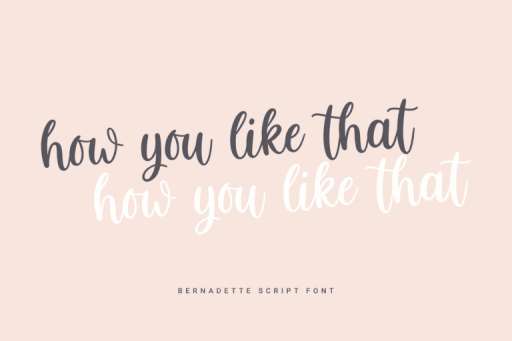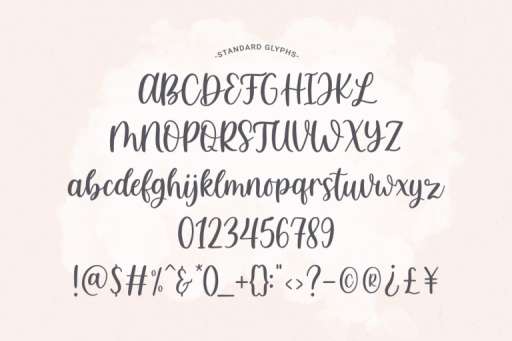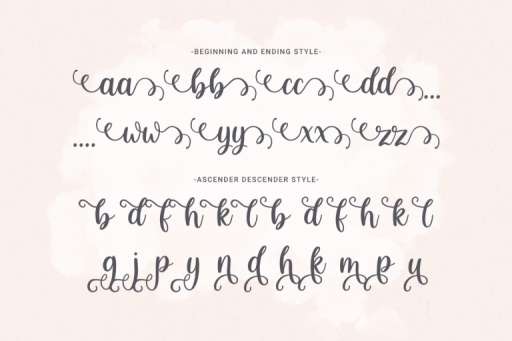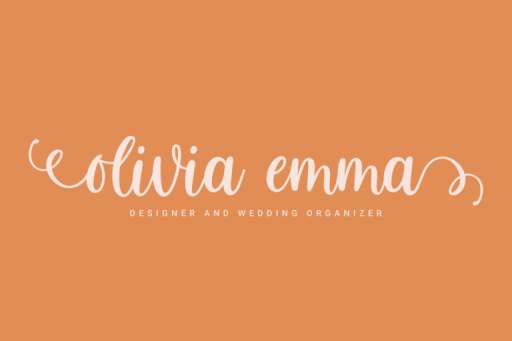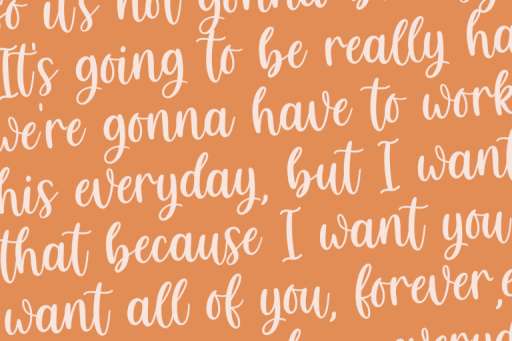
Bernadette Font - Script Business Font From Jimtype Studio
Bernadette Regular
Bernadette Font – Cute and Elegant
Bernadette is a charming script font, with character beginning & ending, ascender, and descender style. This Bernadette script font looks very awesome for feminine branding, feminine logo, weddings, social media, cards, logos, quotes, web, branding, crafting project, SVG project, shirt, and so on.
Bernadette Features :
• Swashes
Bernadette Font